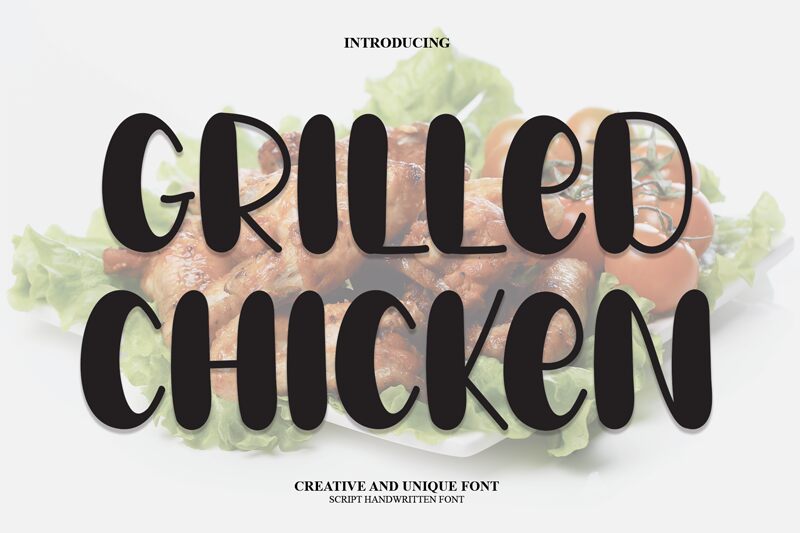
Grilled Chicken
Looking for a font that's fun, bold, and full of personality? Look no further than Grilled Chicken! This extra-bold display font from Belina Studio is perfect for any project that needs a dose of whimsy and humor. With its cartoon style and playful curves, Grilled Chicken is ideal for everything from children's books and product packaging to social media graphics and web designs. So why settle for boring old typefaces when you can add some spice to your projects with Grilled Chicken? Try it out today and see the difference it makes!
the latest style letters are perfect for wall displays, wedding invitations, social media post logos, advertisements, product packaging, product designs, labels, photography, watermarks, invitations, stationery, and any project that requires taste handwriting.